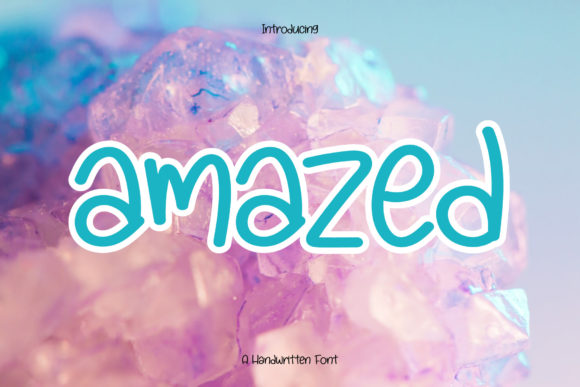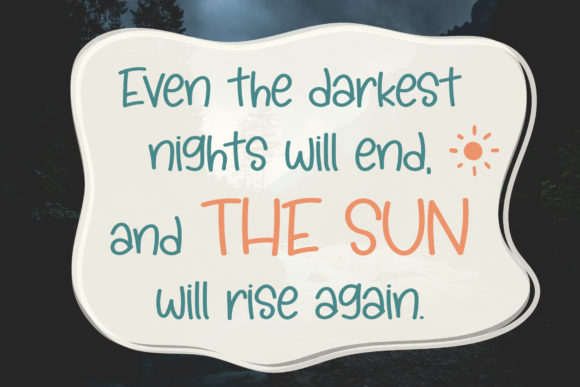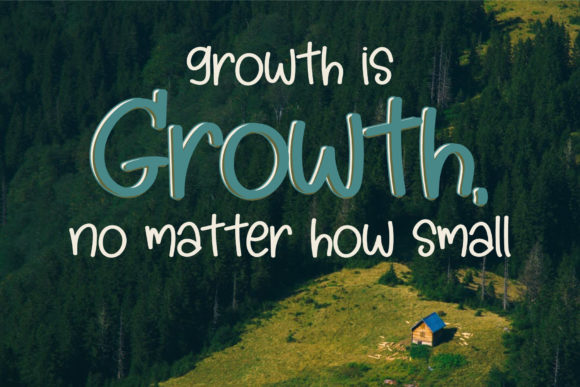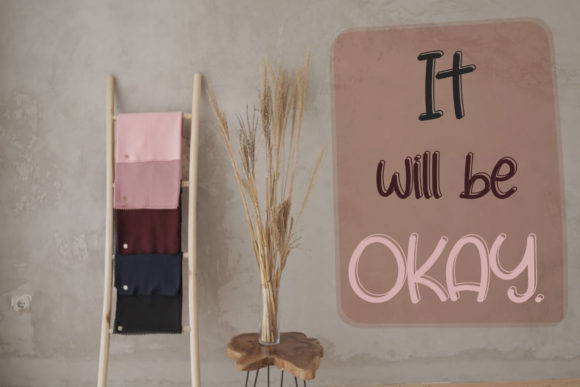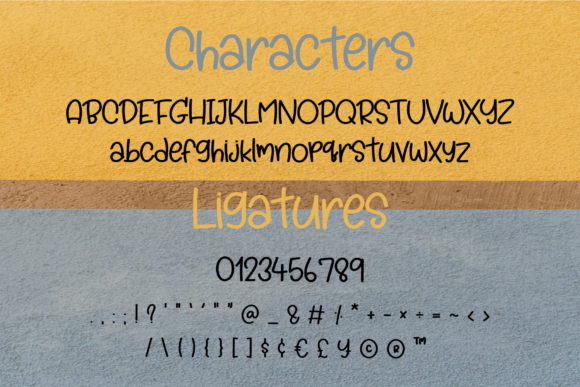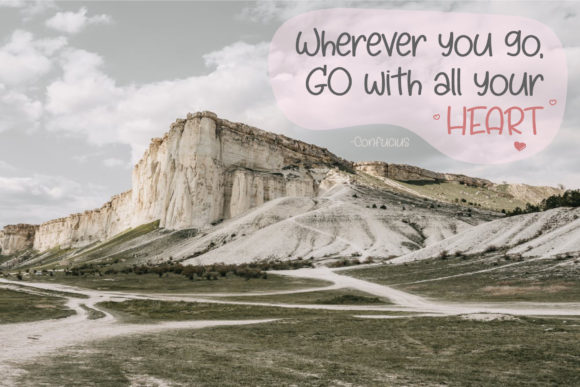
Amazed Font
About Amazed Font
Amazed is a fun and quirky handwritten font. It has a modern yet whimsical style and it will undoubtedly immerse your designs into a magical world.